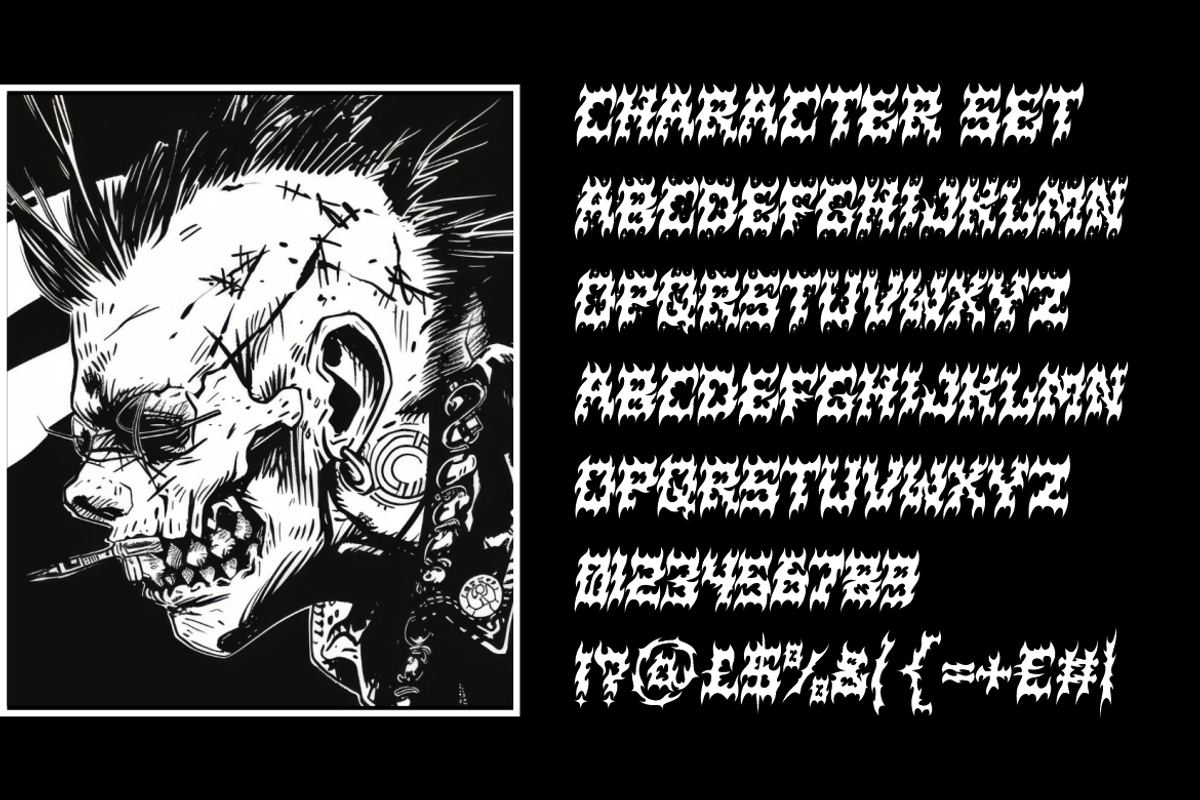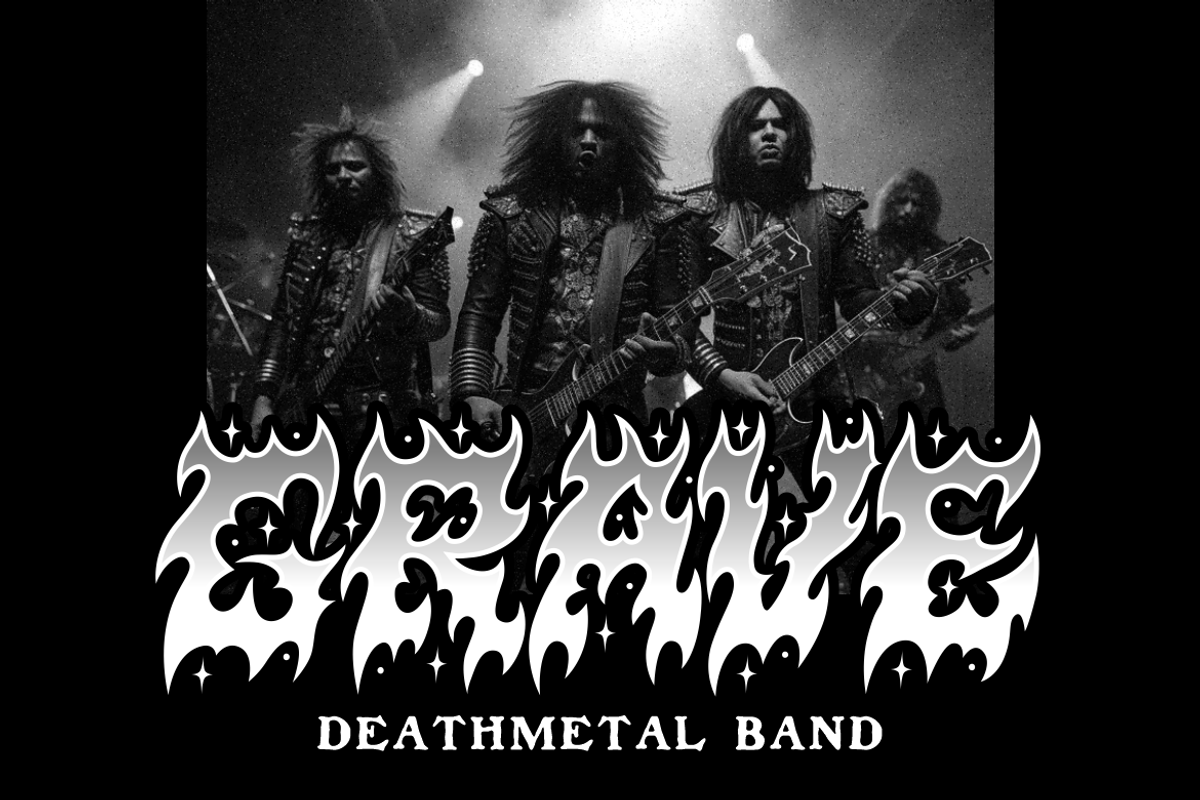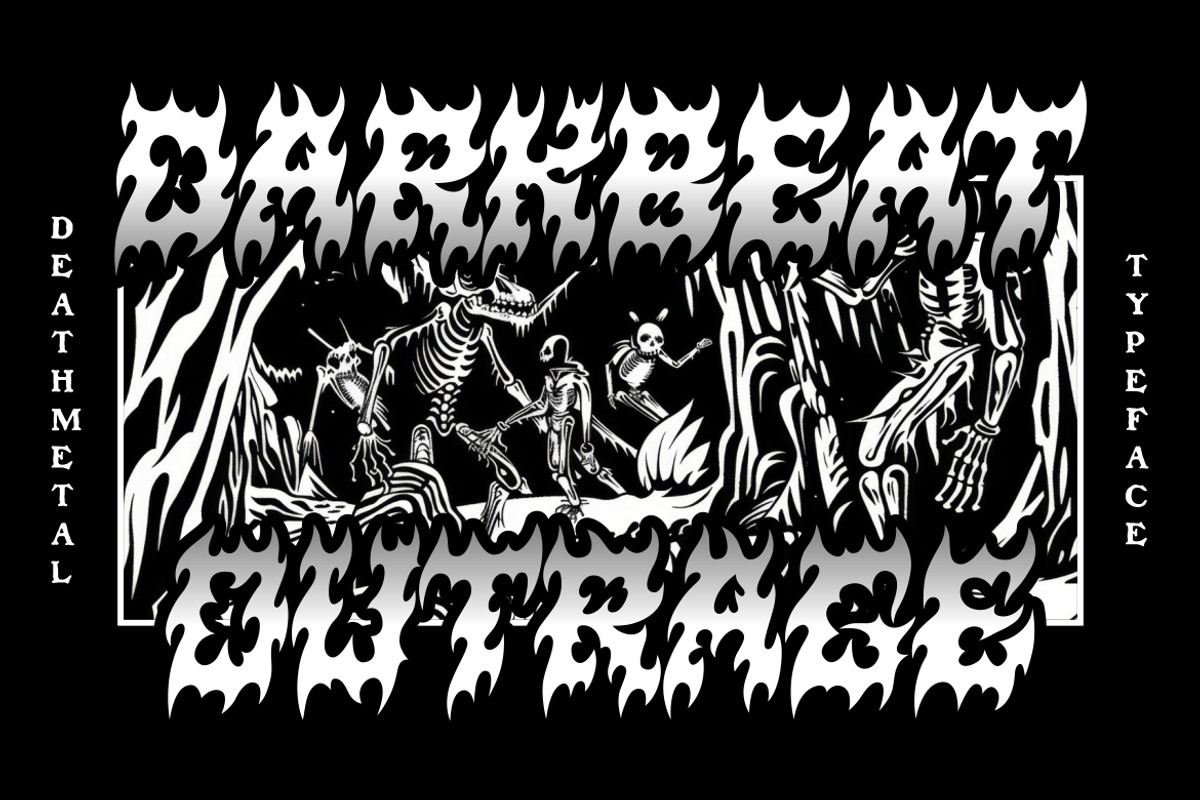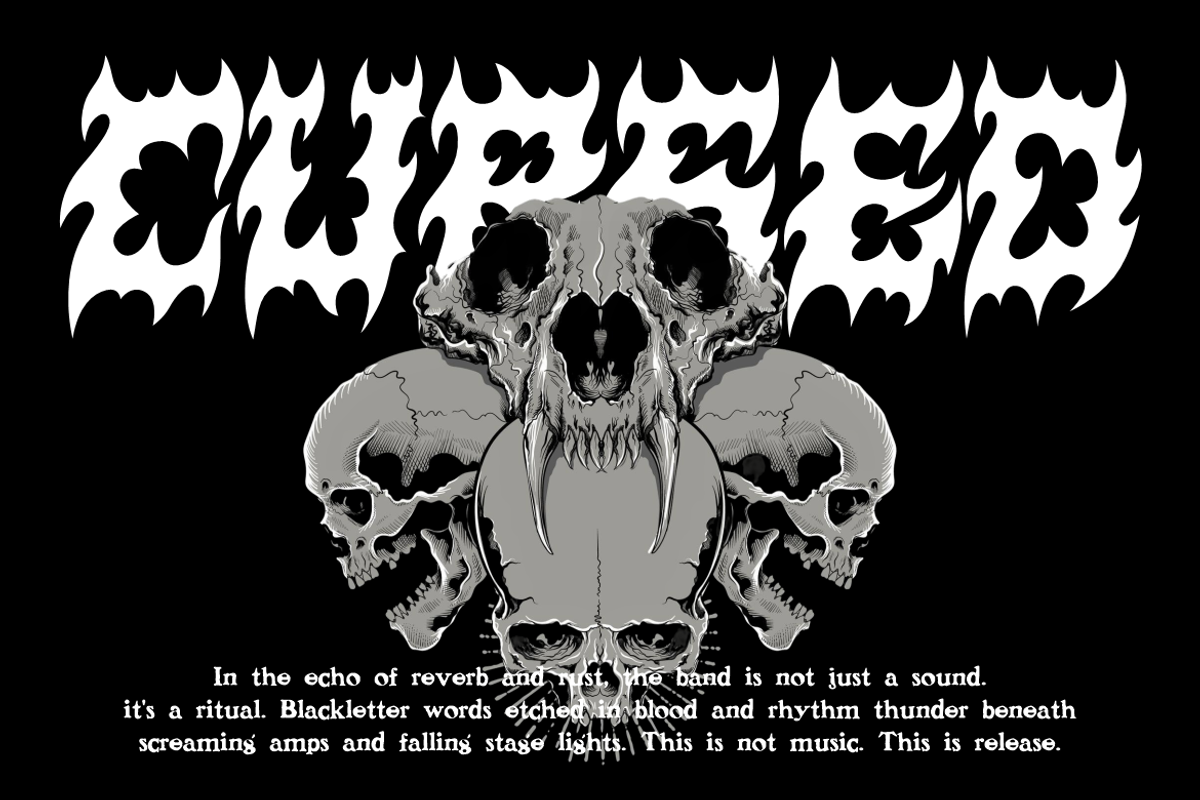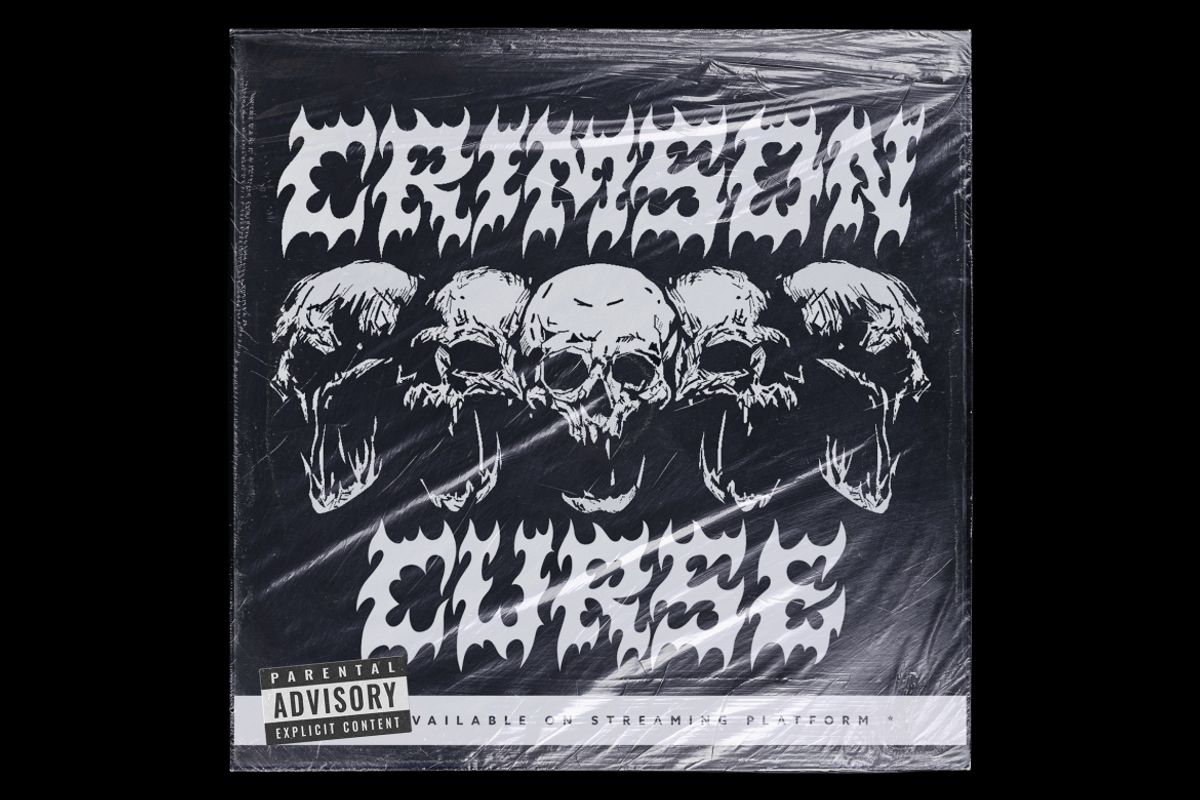
Darkbeat Outrage Death Metal Font
Darkbeat Outrage is a hell-forged death metal typeface designed to set your message ablaze with fury. This blackletter-inspired flame font fuses gothic horror aesthetics with the raw energy of metal culture. Each character drips with intensity, combining sharp, flickering strokes with molten forms that mimic rising infernos. Whether set against black-and-white album covers or high-contrast gig posters, this font doesn't whisper—it roars. With detailed uppercase characters, numerals, and symbols, it's built for bold compositions and heavy presence.
Perfect for extreme metal bands, horror movie titles, and underground fashion branding, Darkbeat Outrage offers visual chaos in the best possible way. From stage banners to streaming platform covers, every glyph is designed to intimidate and ignite. Use it on apparel, stickers, social media campaigns, or gritty packaging designs—wherever a blaze of rebellion is needed. Dominate your layout with a font that’s louder than distortion and darker than midnight riffs.